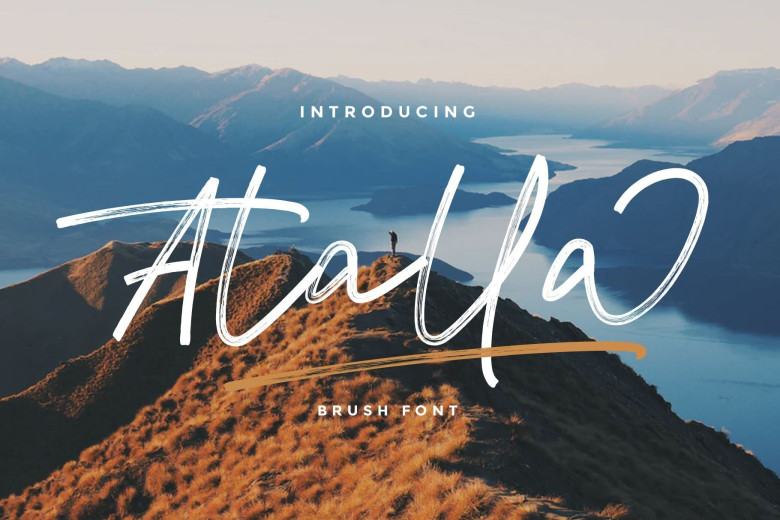
Atalla Brush Script Font
Atalla Brush Script Font is a grungy, hand-drawn brush font supplied in two styles with additional underlines and paint spills. This typeface is designed and shared by Rantautype. Festany is script font with hand-lettering brush style, with open-type feature include of the font.